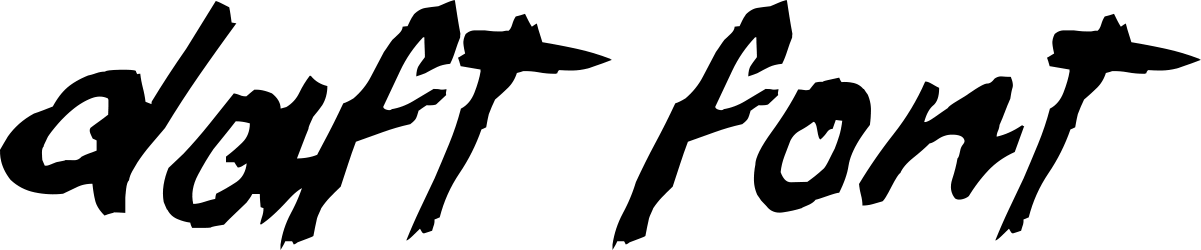
Daft Font
Just stay and put a little bit of effort into setting your typography design in a thriving route through the crazy and urban vibes of this horror font. Daft font while doesn’t support uppercase letters, stands firmly to offer its utmost in designing many street posters, cards, movie titles, and apparel just in the company of casual trash and speckled effects.